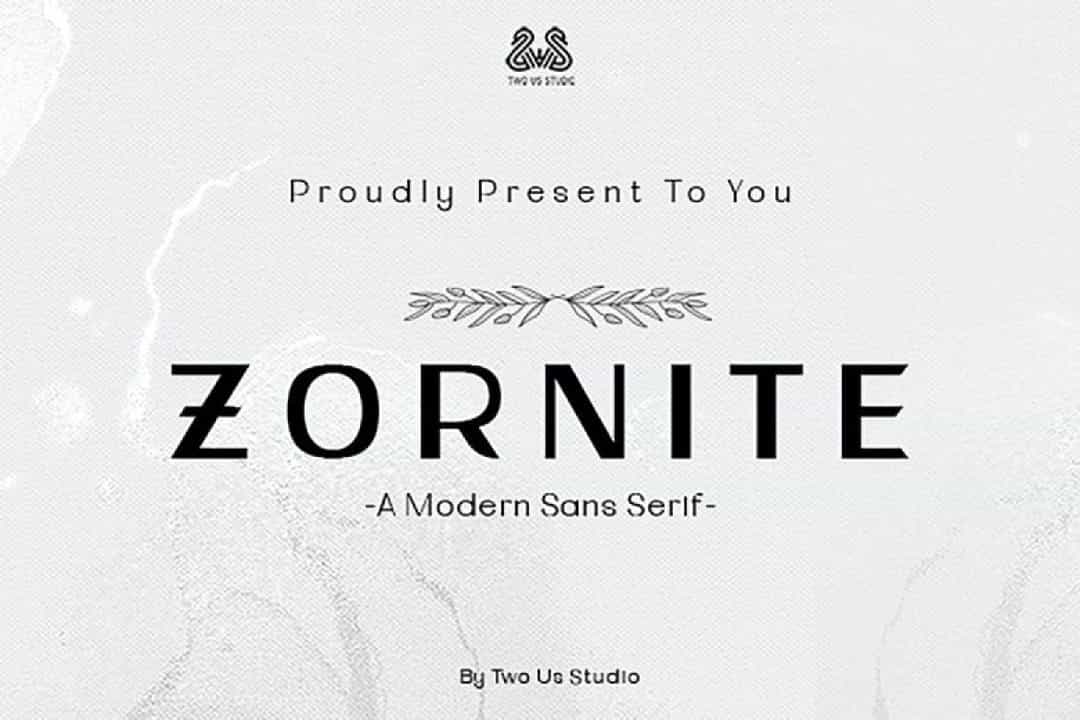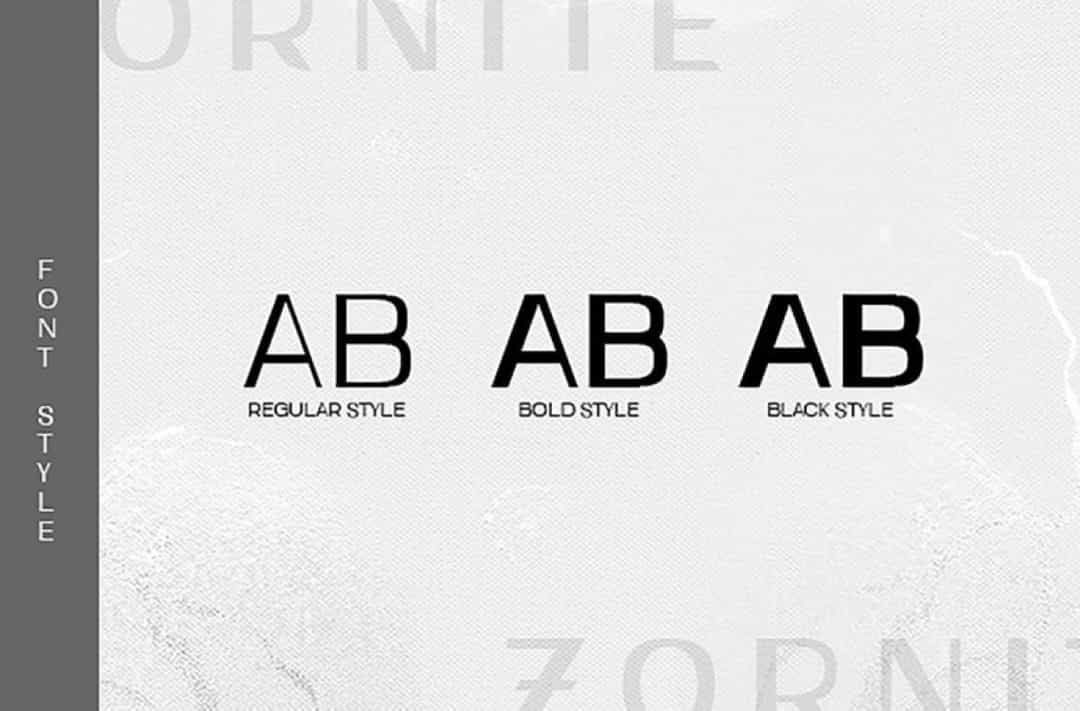
Zornite is an elegant modern sans serif font with clean and minimalist lines that makes this font easy to incorporate into designs such as magazine covers, book covers, Facebook posts, invitations and much more!